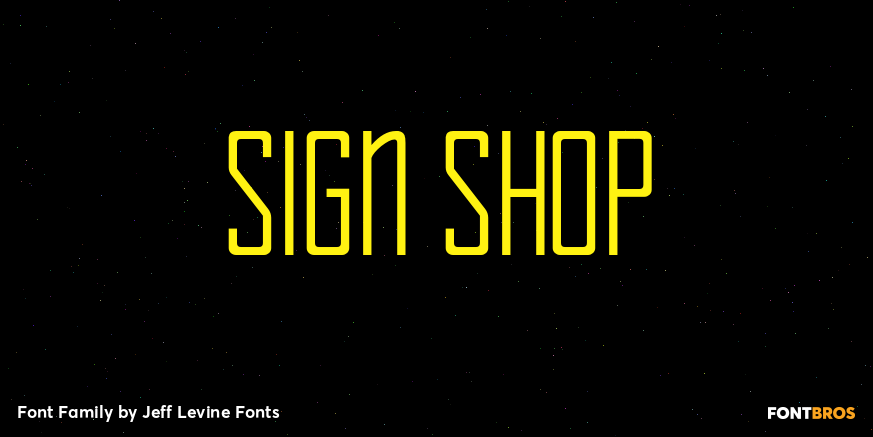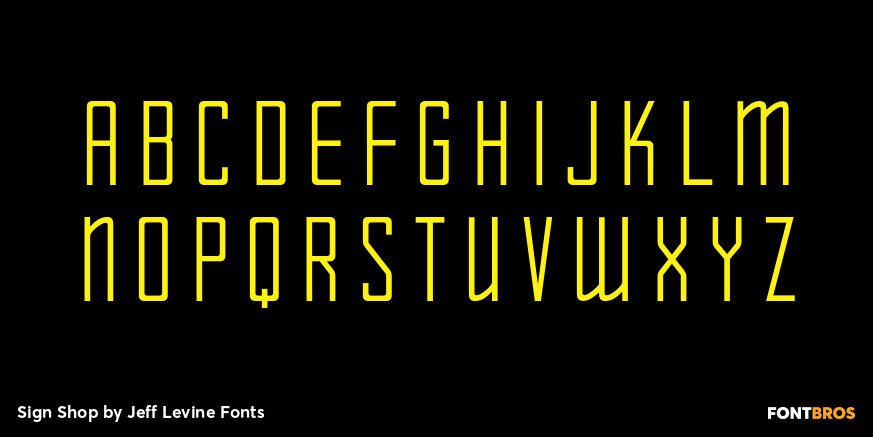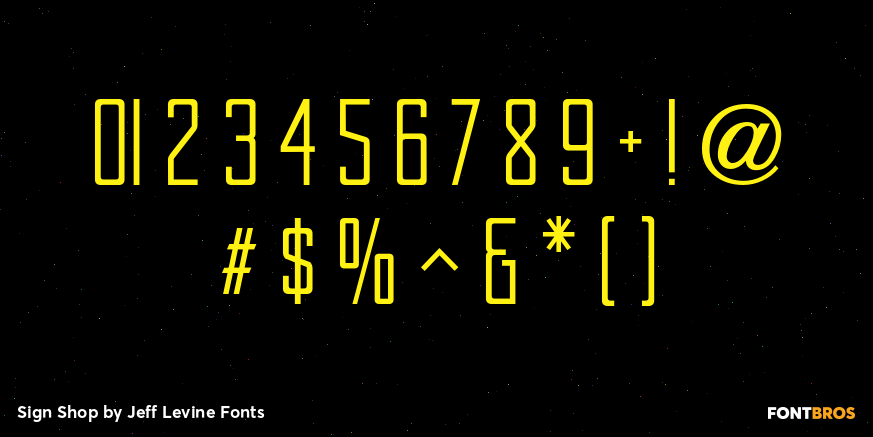
Sign Shop
Sign Shop JNL was inspired by a set of ceramic titling and display letters similar to those used to model Entitled JNL and made by the Mitten's Display Letter Company of Redlands, California. The distinctive retro feel adds a great touch to any project. Bold, Deco and Oblique versions were created by Jeff Levine for extra visual impact.